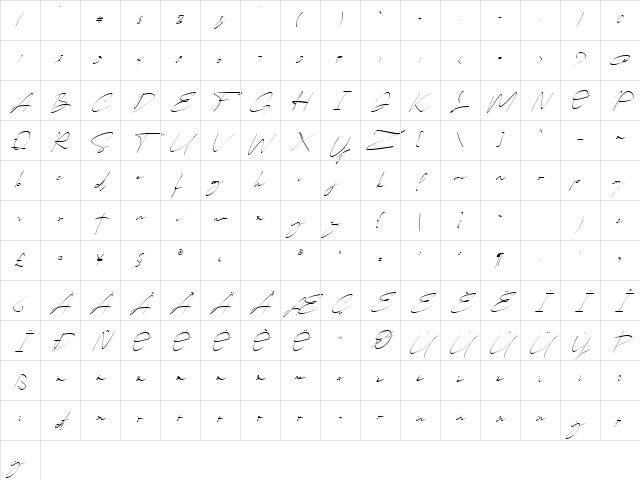
Callihgra Free Regular Free Font
Callihgra Free Regular
Foundry: Namara Creative Studio
Designer: Eep Apringga | Namara Creative Studio
Design Context for Callihgra Free
Callihgra Free is a composed and adaptable typeface that performs quietly and consistently across a wide range of design contexts.